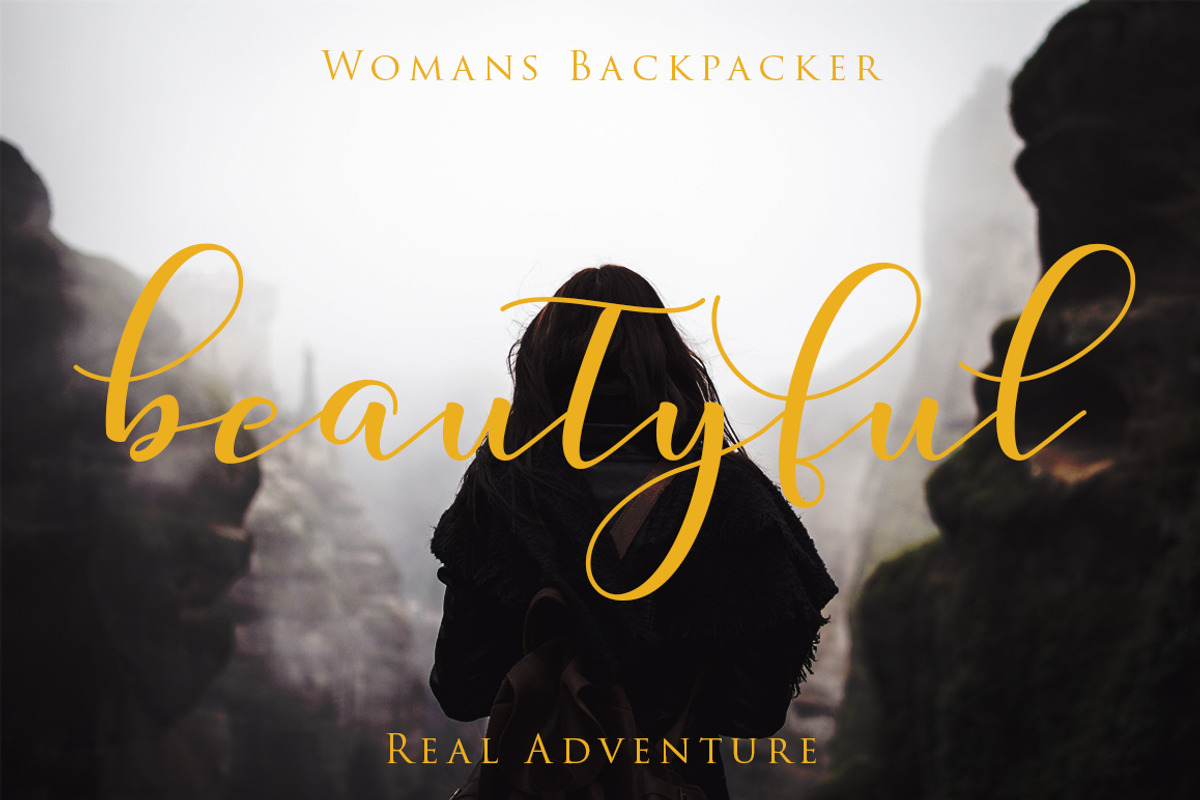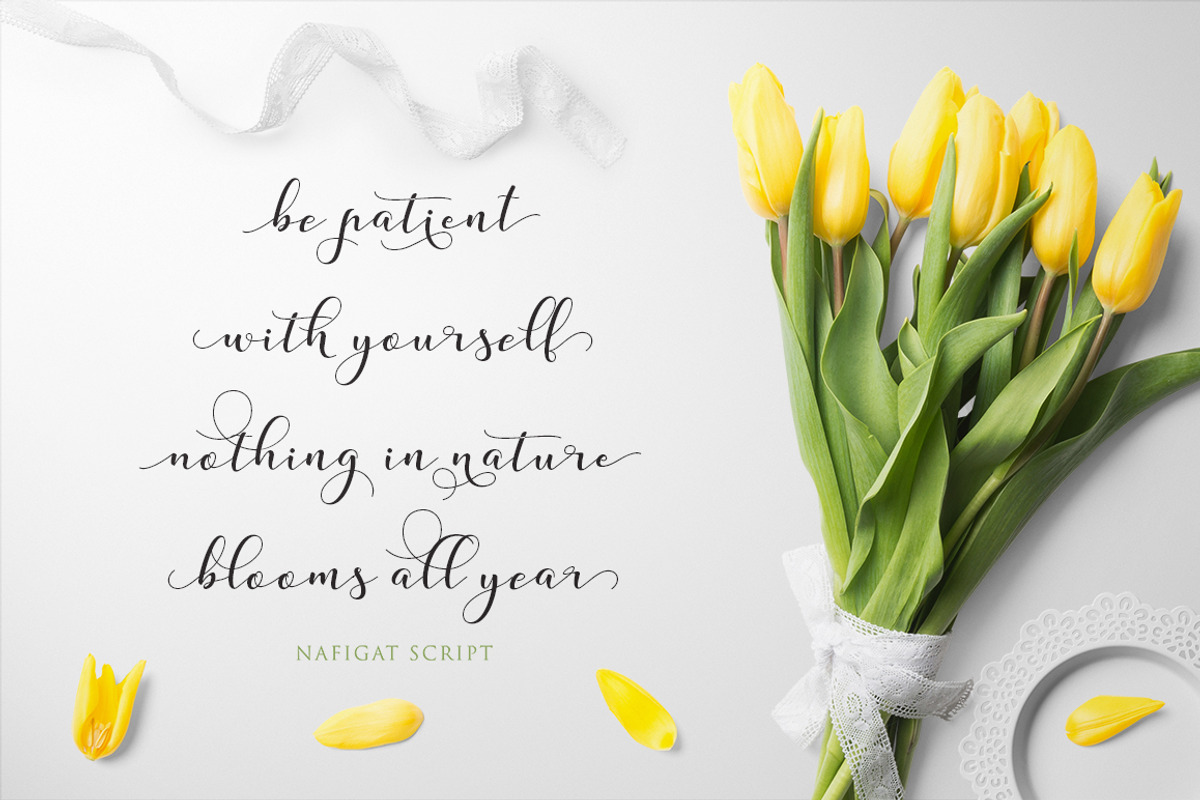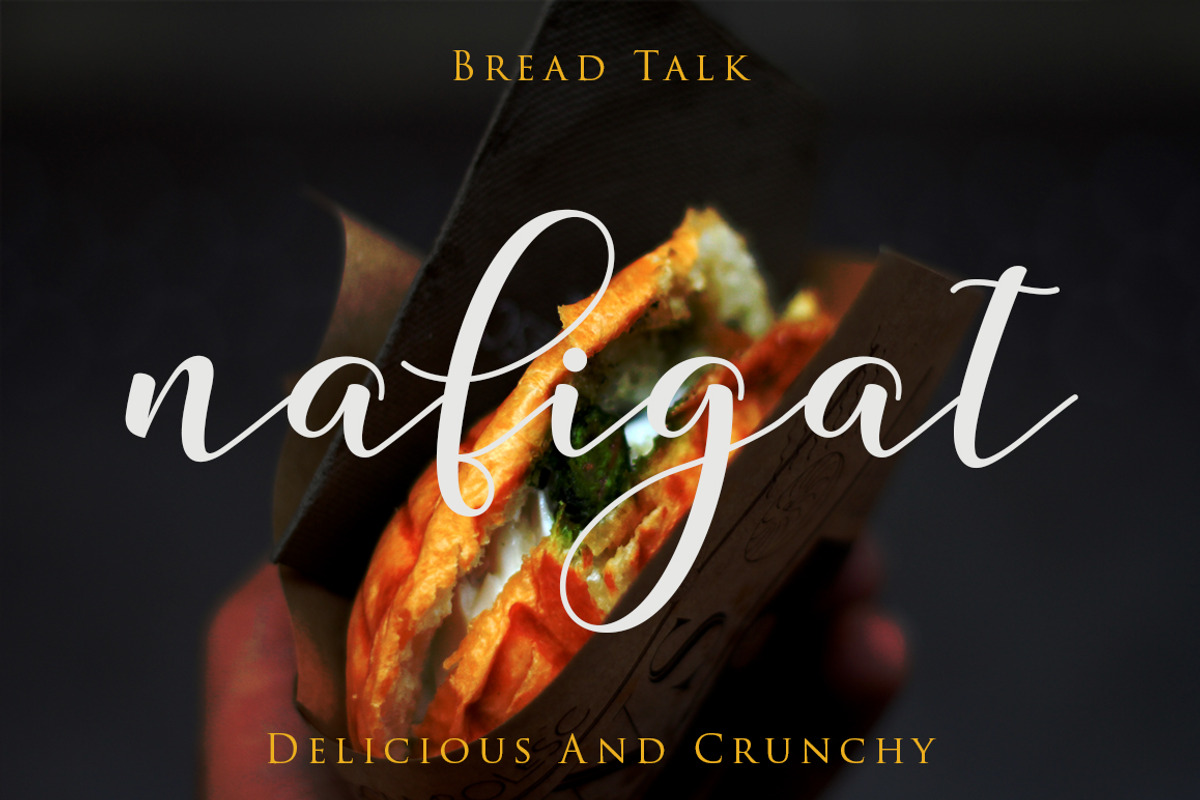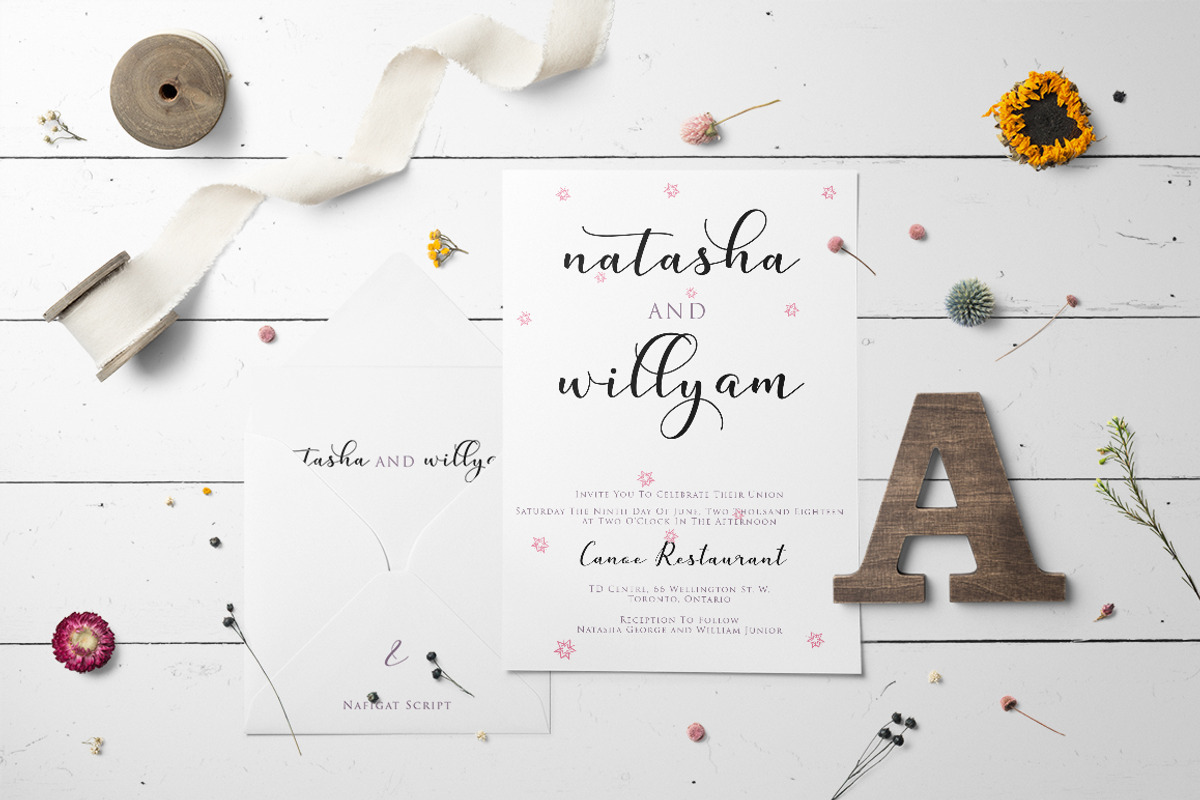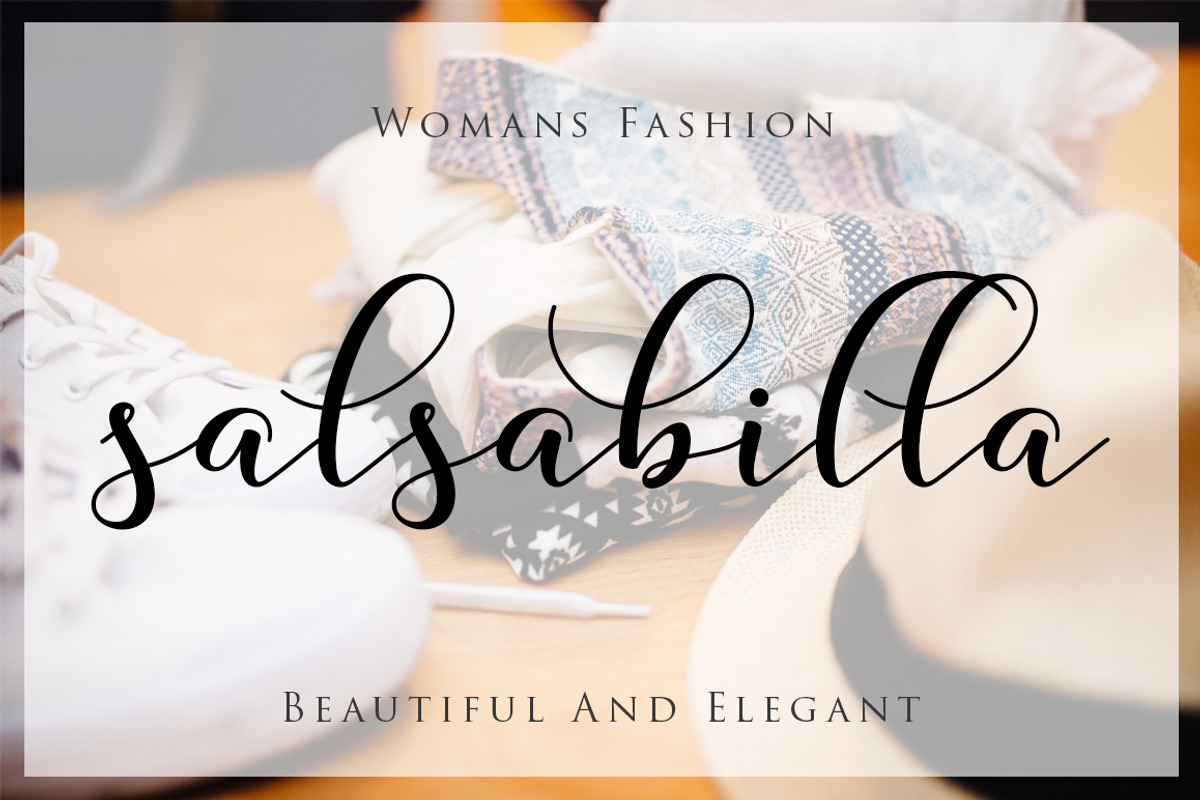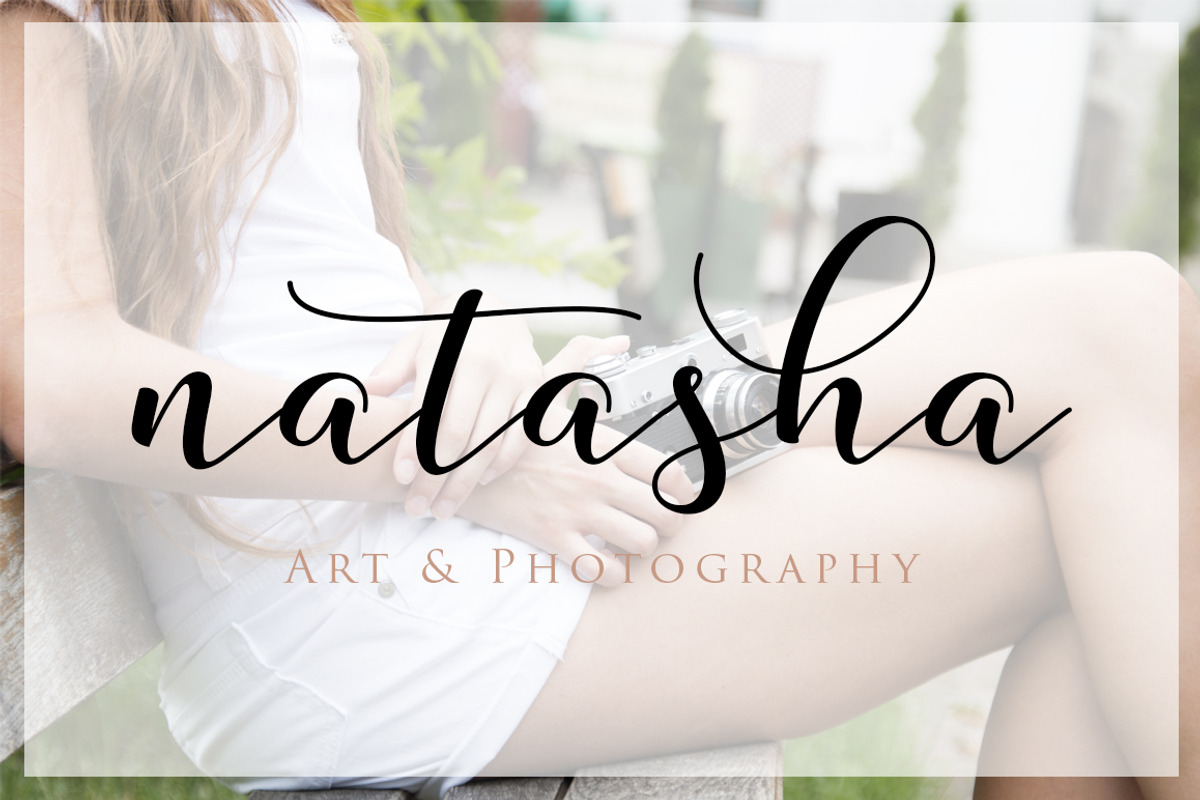
Nafigat Script
Nafigat Script | A Romantic and Elegants Fonts over 870 + Glyph
Nafigat Script goes with Romantic and Modern Calligraphy, ready to give your design project with Fresh and Fabulous Style. This font have an 264 Standard Glyph + 408 Glyph Alternate in Open Type Standard Format.
Perfect for wedding, branding and romantic invitation and Also Suitable for various purpose such as digital lettering, headings, logos, wedding invitation, t-shirt, letterhead, signage, lable, news, posters, badges, branding materials, t-shirt, print, business cards, quotes, logo, poster, and suitable for any graphic design project.
Nafigat Script comes as a single font file packed full of great features. It contains a full set of lower & uppercase letters, a large range of punctuation, numerals, and multilingual support. The font also contains several swashes and stylistic alternates for those who have open type capable software (e.g. Photoshop/Illustrator).
Lovely Features has Given :
- Standard Uppercase & Lowercase
- Lowercase Alternates
- Punctuation & Number
- A Lot Variation of Stylistic Alternates
- Contextual Alternates
- Swashes Lowercase 1 - 12